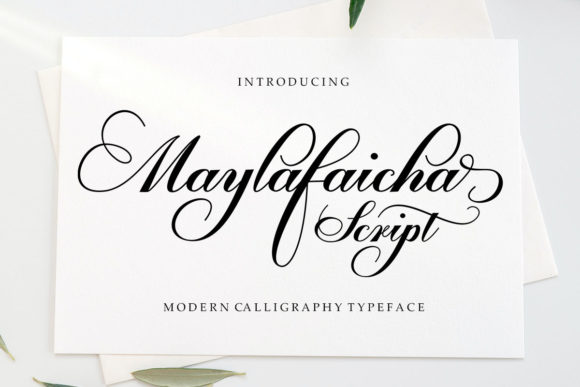
Immerse yourself in the enchanting world of Maylafaicha, where elegance meets versatility! As a script font, Maylafaicha exudes sophistication and charm, making it the perfect choice for a wide range of creative endeavors.
With its captivating curves and graceful strokes, Maylafaicha adds a touch of whimsy and allure to any design. Its beauty shines through in logos, branding projects, and labels, leaving an unforgettable impression on your audience.
Let Maylafaicha elevate your photography, giving each image a timeless charm. Its delicate lines and flourishes add a touch of magic to your photographs, making them stand out from the ordinary.
Use Maylafaicha to create unique watermarks, ensuring your designs and images are protected while adding a touch of elegance. For special events, Maylafaicha transforms invitations and cards into works of art, setting the tone for a truly memorable occasion.
But Maylafaicha's versatility doesn't end there! Its PUA encoding unlocks a world of possibilities, allowing you to access all its glyphs and swashes with ease. Unleash your creativity and let your designs soar to new heights.
Maylafaicha is not just a font; it's an artistic masterpiece that empowers you to express yourself in countless ways. Its ability to captivate and inspire will leave a lasting impression on your audience, making your creations truly extraordinary.